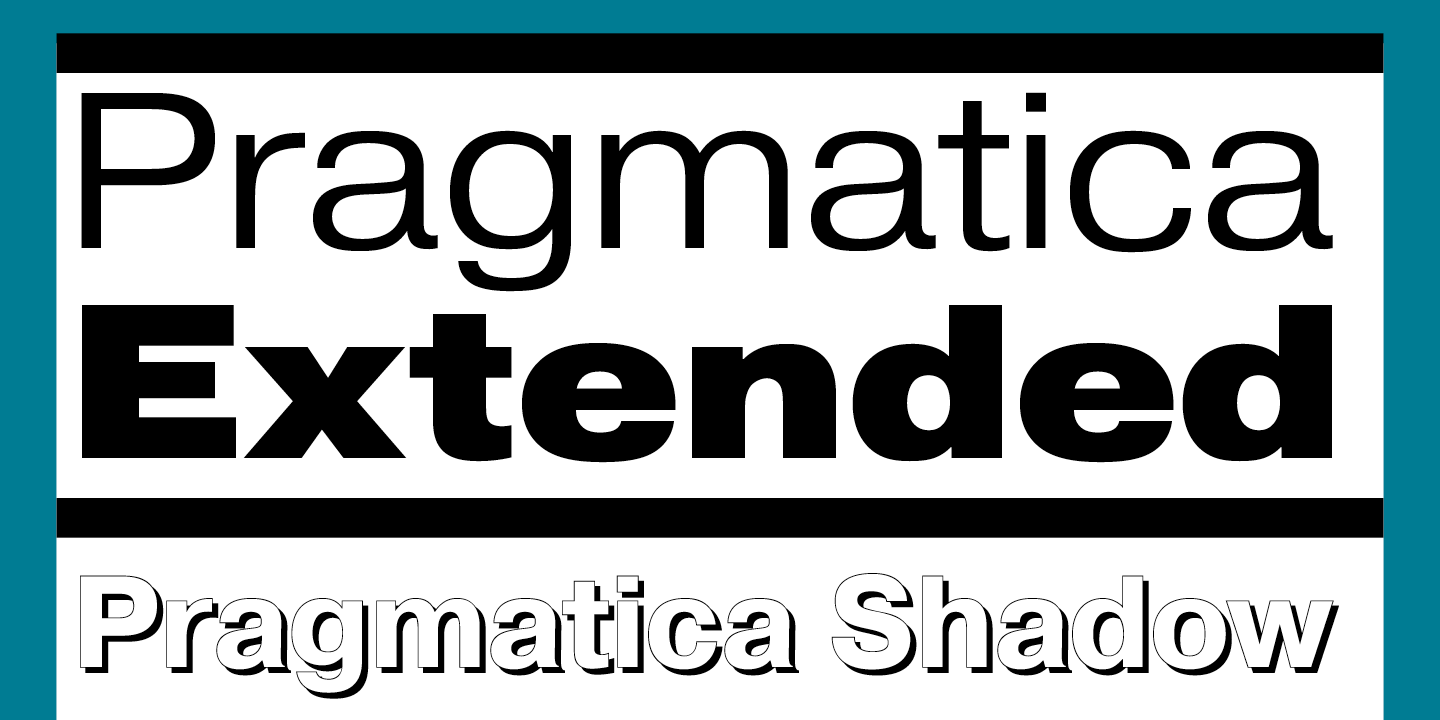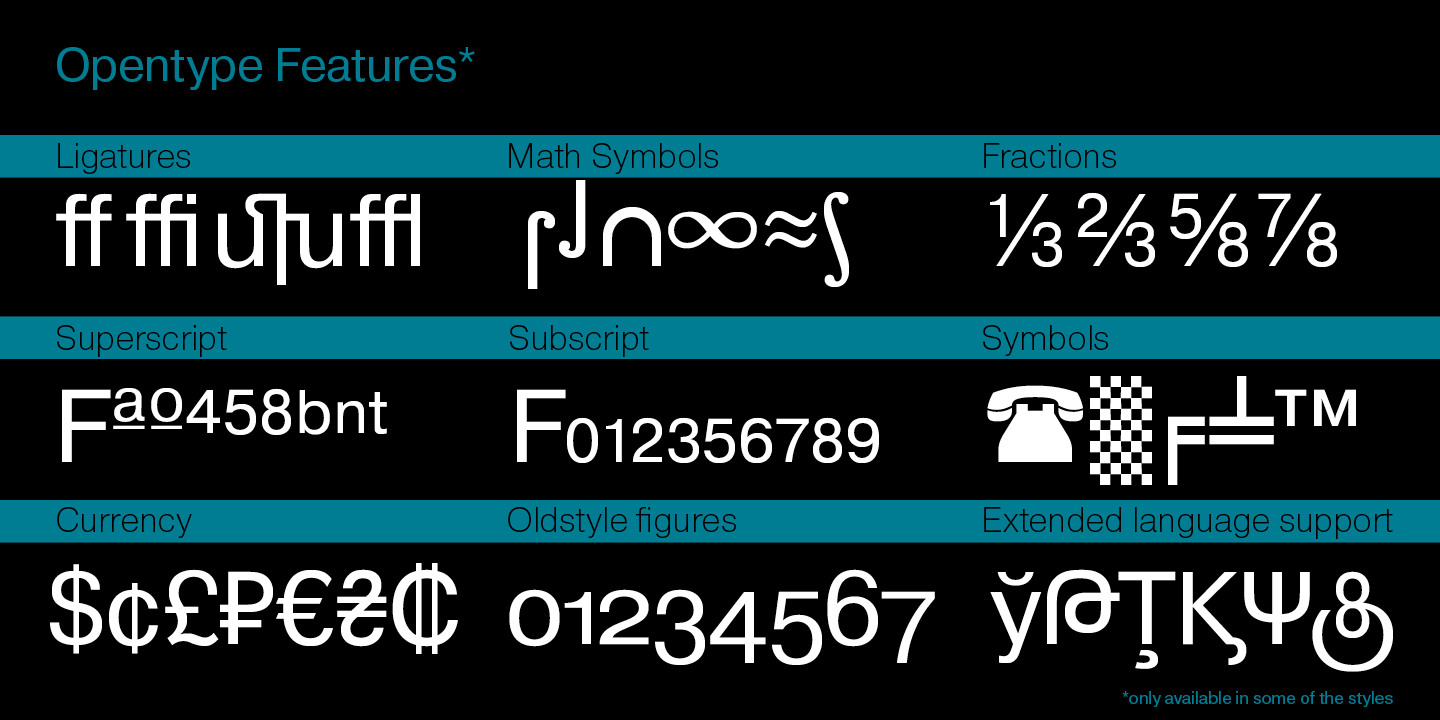
Pragmatica Extended Font
Pragmatica Extended Font - Web explore pragmatica designed by alexander tarbeev, manvel shmavonyan, olga chaeva, vladimir andrich, vladimir yefimov at. You can use this font for personal purpose. Web pragmatica extended is a sans serif font collection published by paratype.
Web Pragmatica Extended Is A Sans Serif Font Collection Published By Paratype.
You can use this font for personal purpose. Web explore pragmatica designed by alexander tarbeev, manvel shmavonyan, olga chaeva, vladimir andrich, vladimir yefimov at.